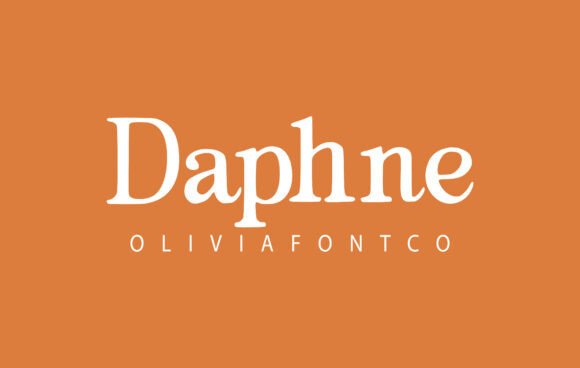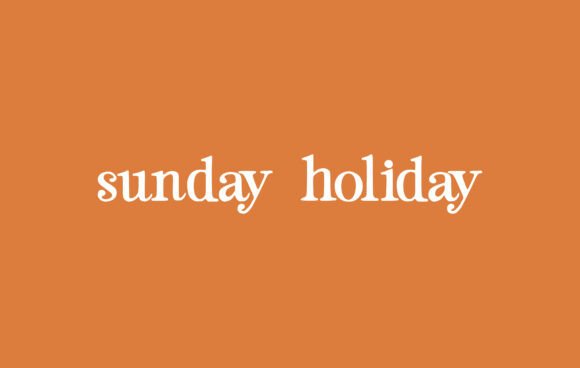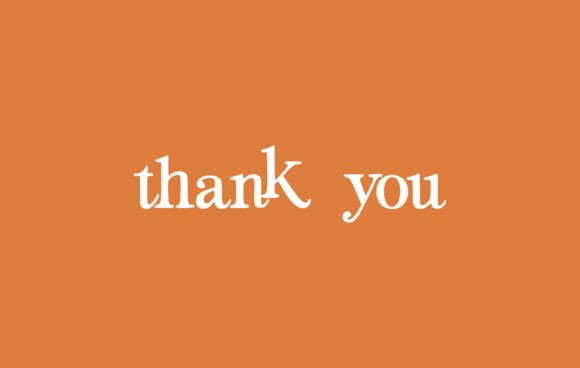
Daphne Font: Elegant Serif Typography for Modern Branding & Weddings
About the Daphne Font
Let us introduce you to Daphne Font, where timeless design meets modern craftsmanship. Daphne font is an authentic handwritten font with a romantic touch. Expertly designed to be a true favorite, this font has the potential to take your creative ideas to the highest level
Daphne’s romantic, handwritten style shines in headlines, short text blocks on invitations or cards, and social media posts where its expressive nature adds personality. It works well for branding projects aiming for a handcrafted, boutique feel. However, its less-than-optimal x-height and letter spacing make it unsuitable for body text or lengthy paragraphs, and its delicate strokes might be lost in small UI elements.
Pair Daphne with a clean sans-serif like Montserrat for a balanced contrast, or a classic serif like Garamond for a more traditional, elegant feel. A geometric sans-serif like Futura could offer a modern counterpoint, while a playful script like Allura could enhance the romantic aspect for projects requiring extra flourish.
Daphne’s overall personality is elegant yet approachable; friendly and slightly whimsical, but maintaining a sophisticated air. It’s ideal for brands and projects that value a personal touch and convey warmth without sacrificing professionalism.